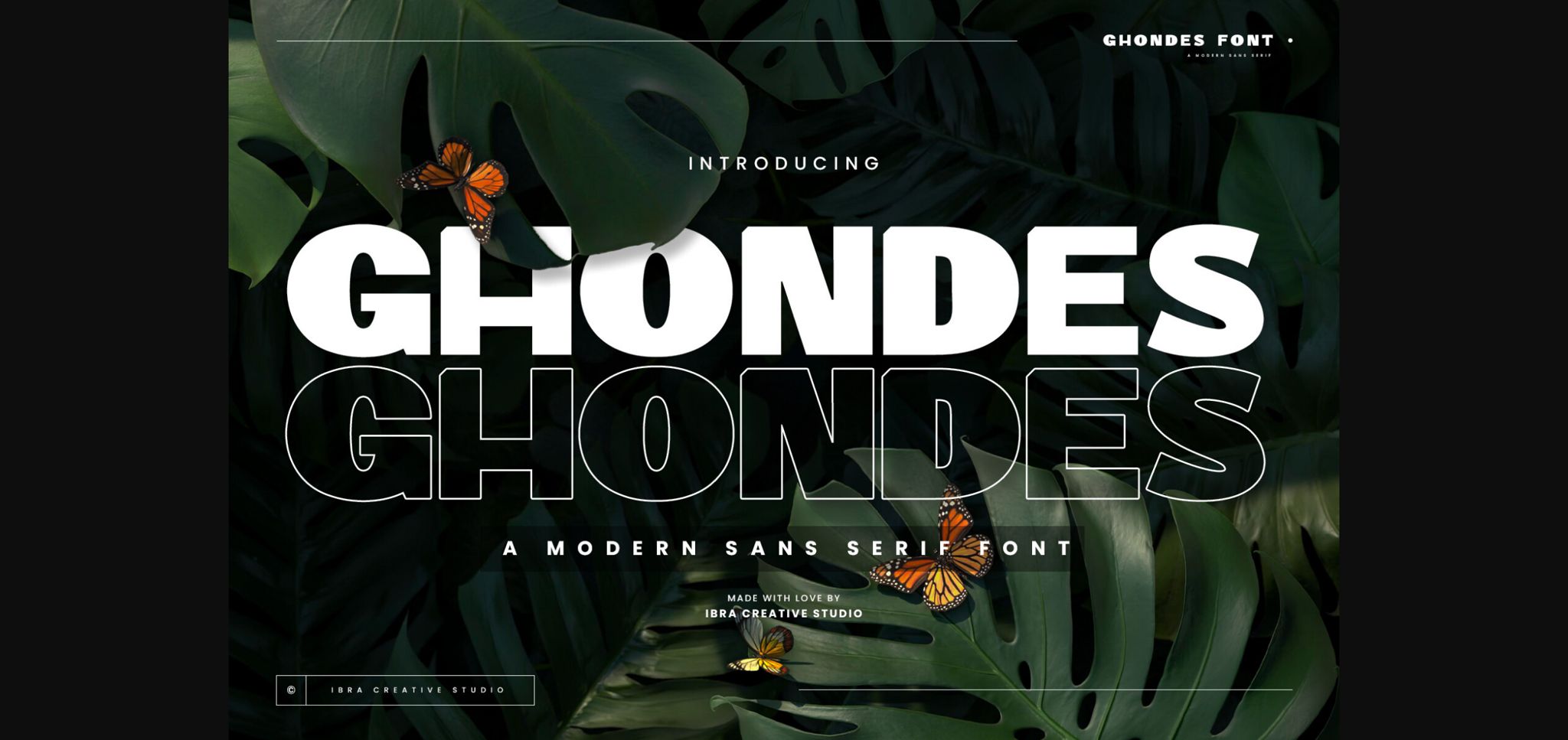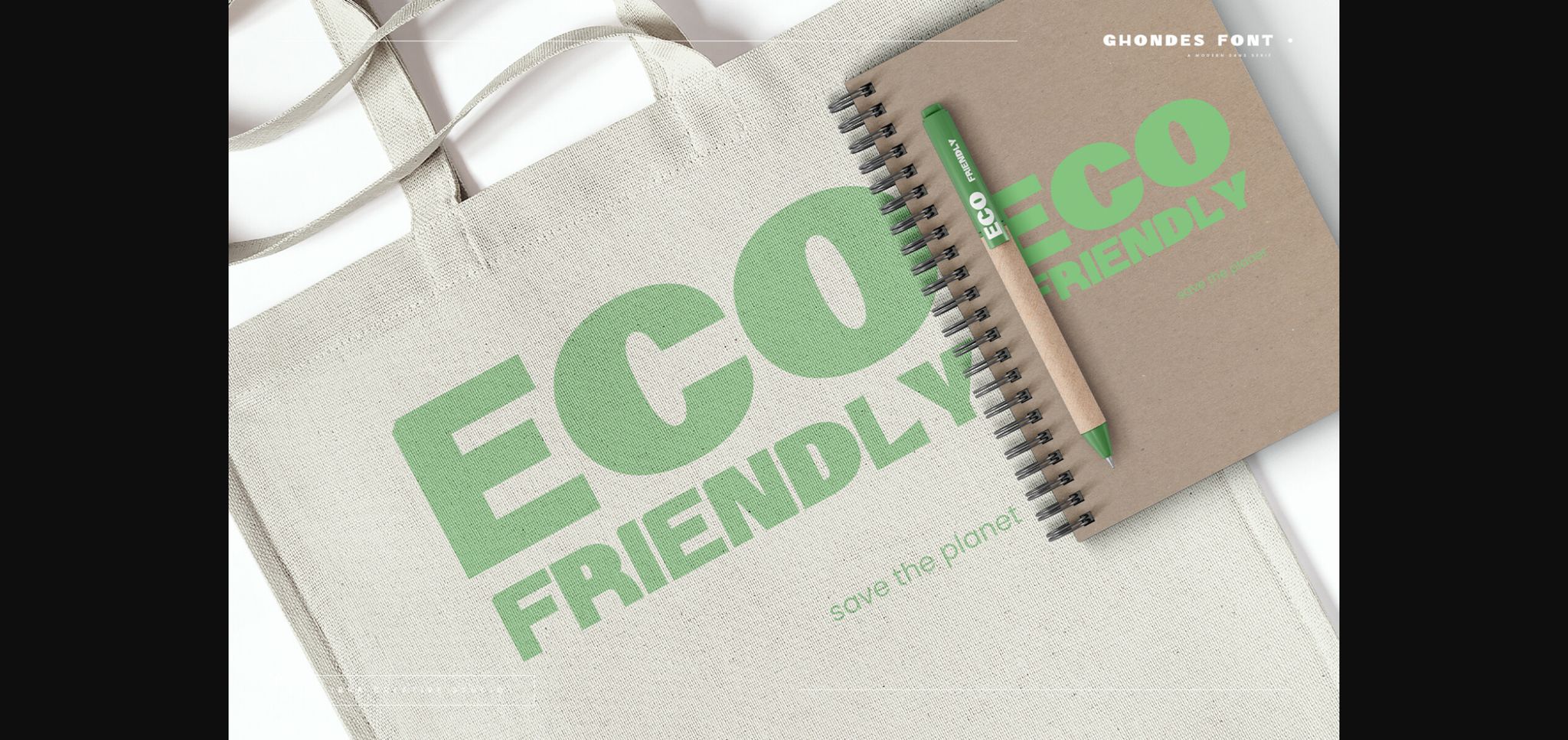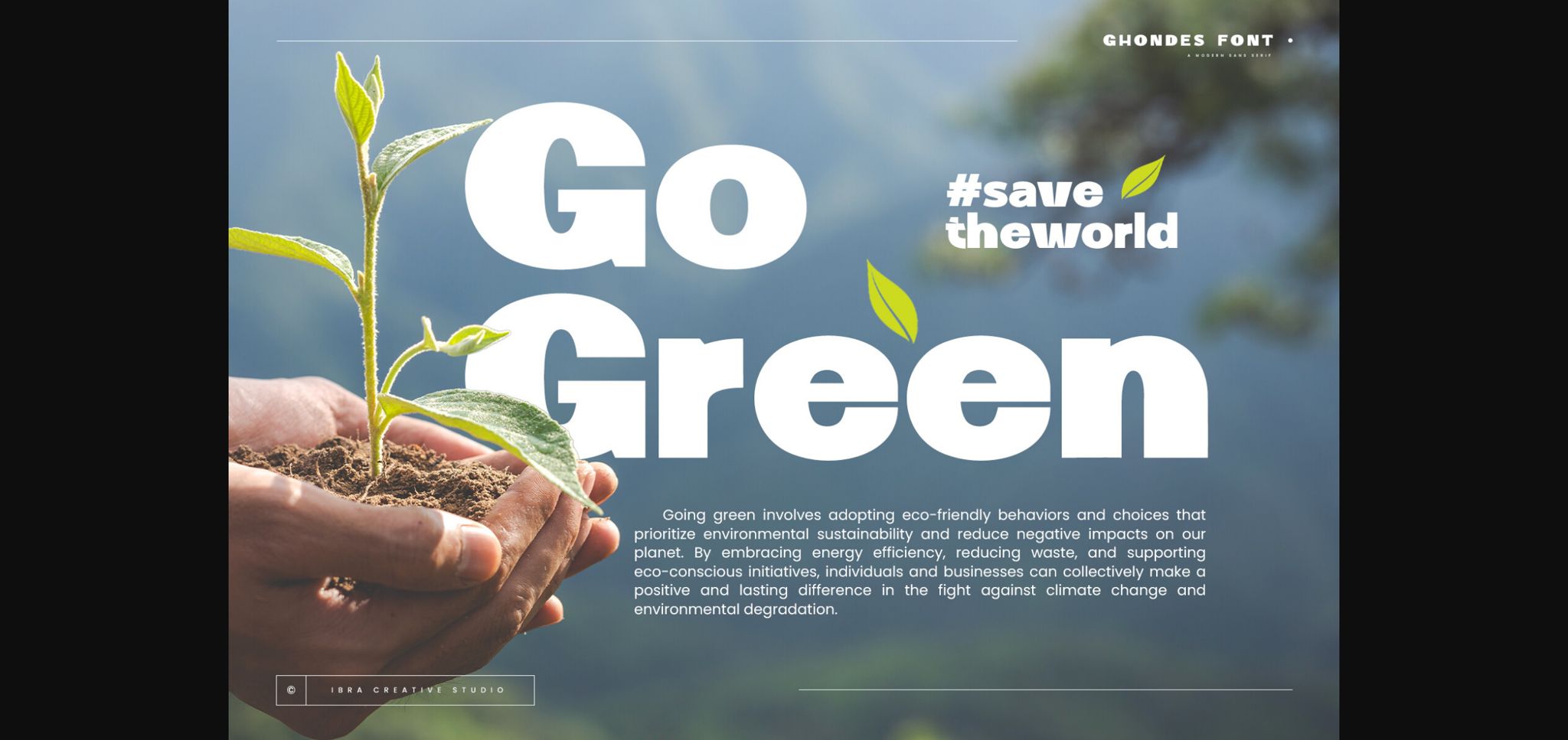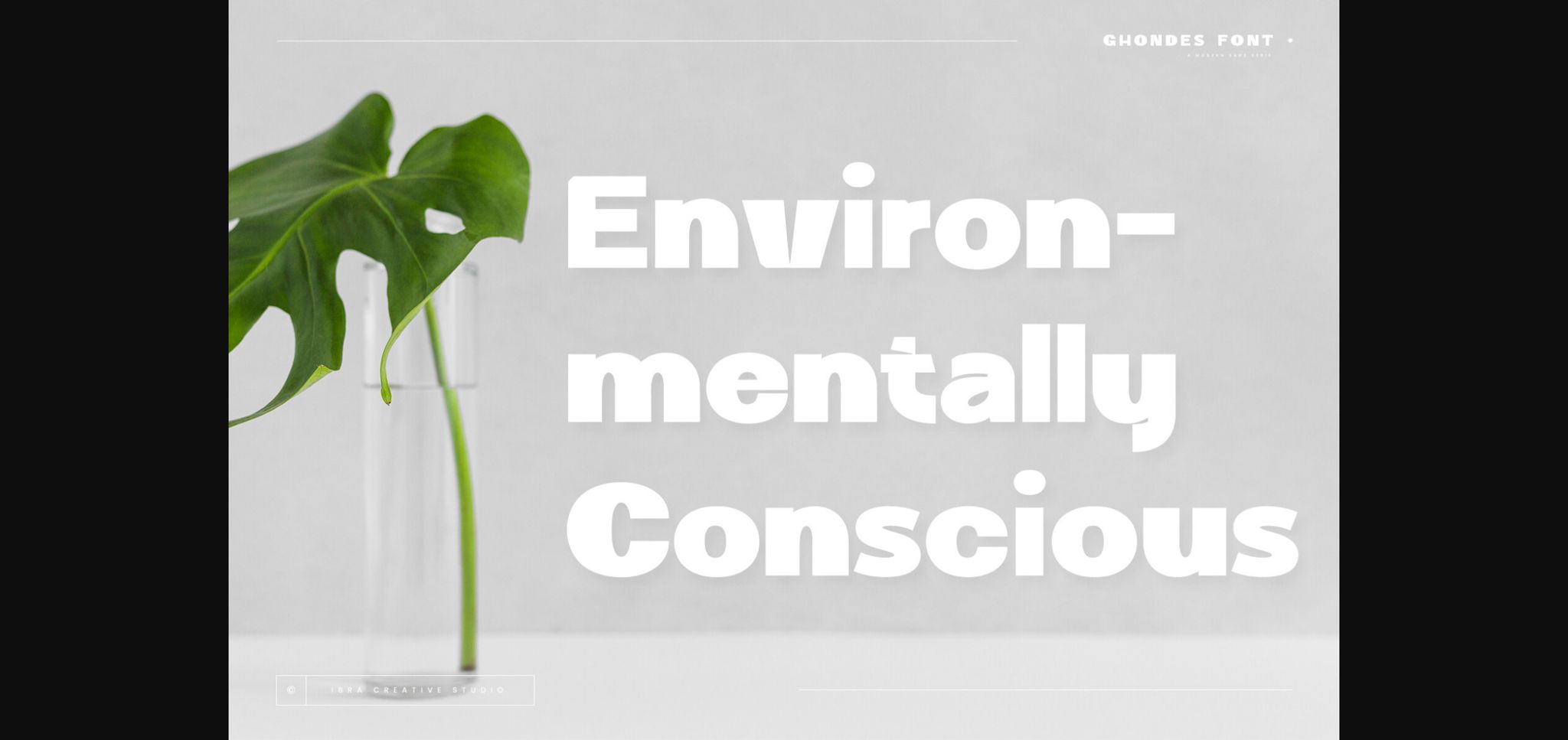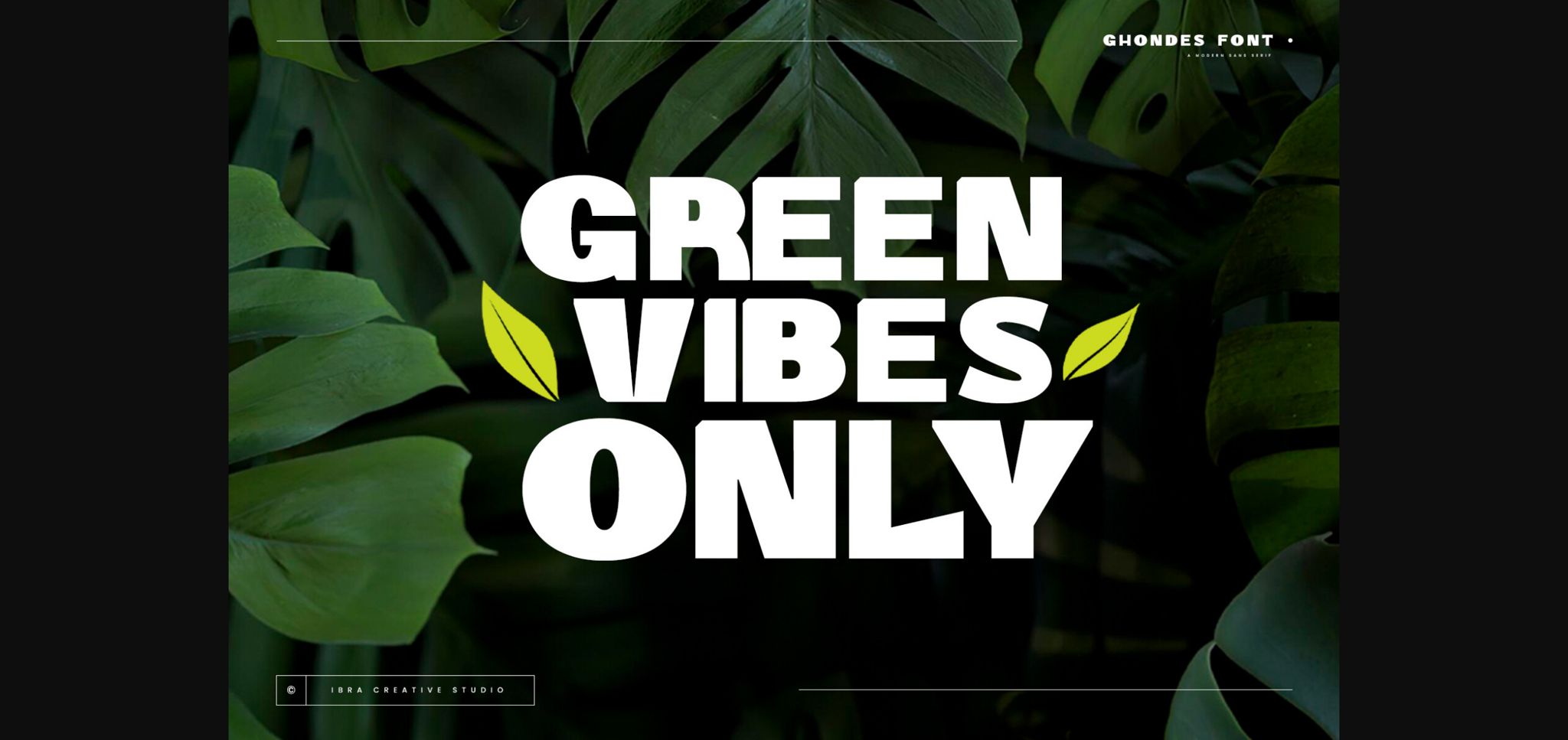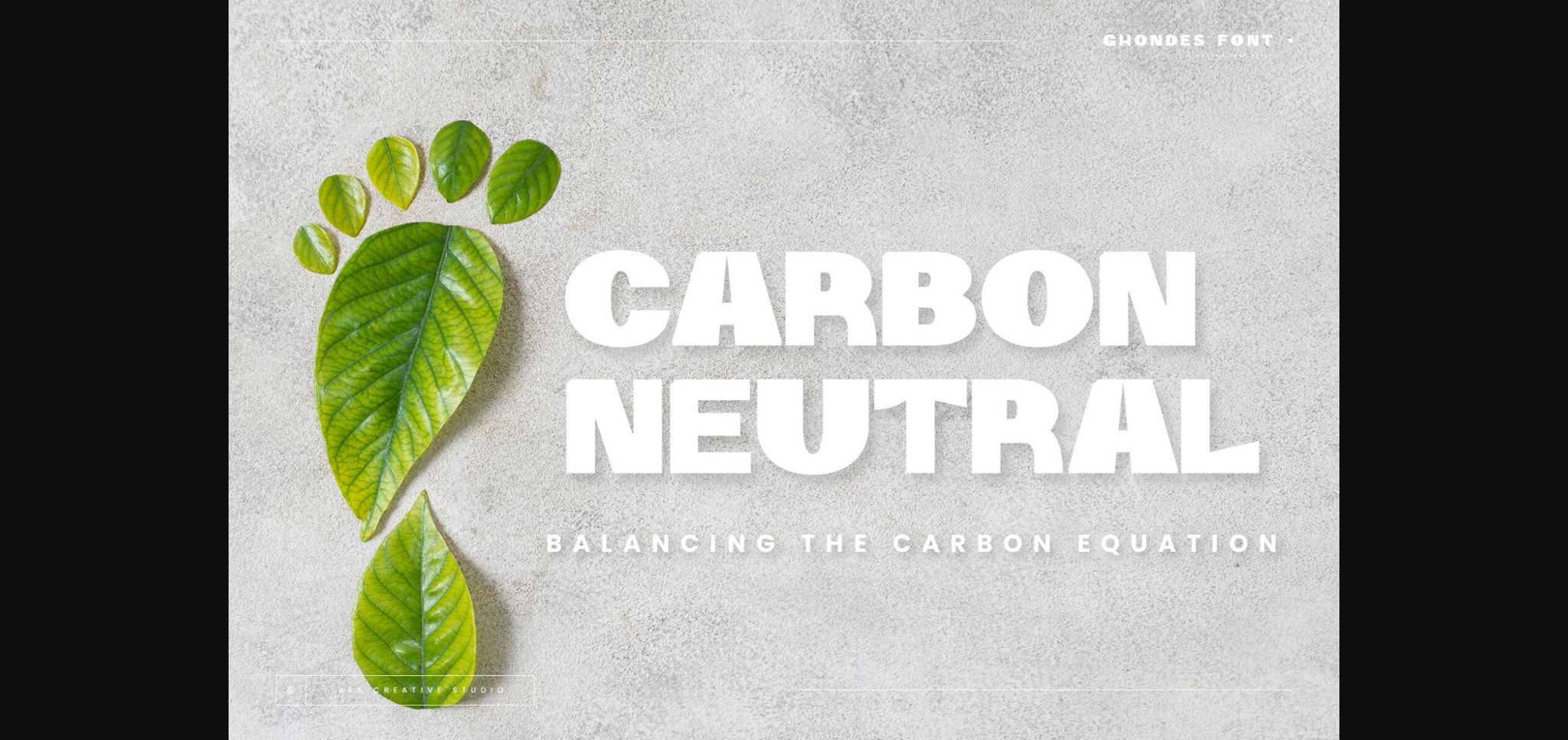
About Ghondes Font
Ghondes is a contemporary sans-serif typeface that exudes a sleek and minimalist aesthetic, making it a quintessential choice for modern design projects. Characterized by its clean, geometric lines and well-balanced proportions, Ghondes strikes a harmonious balance between elegance and readability. The typeface’s versatile design lends itself to a wide range of applications, from branding and editorial work to digital interfaces, offering a timeless and sophisticated typographic solution for today’s design needs.